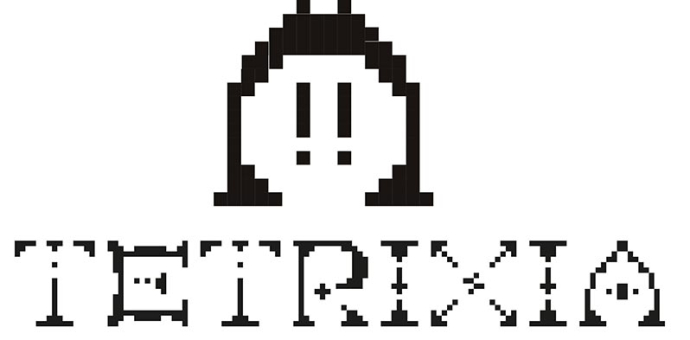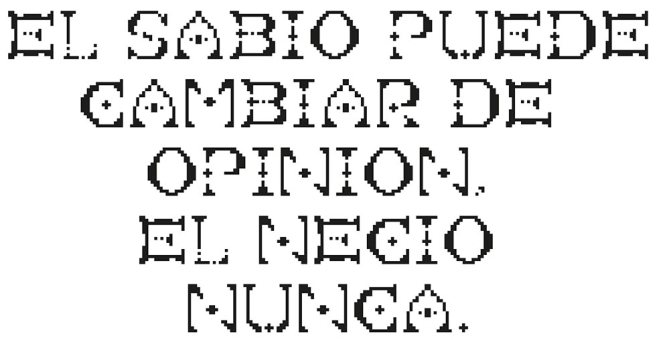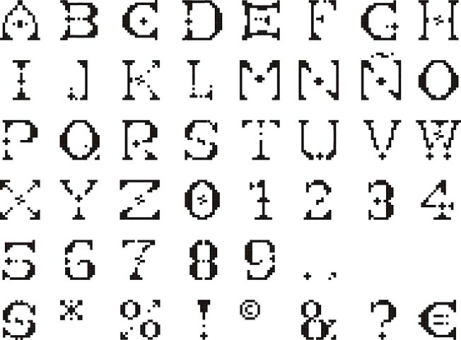
Tetrixia
Font ideal for use in titles, only consists of uppercase. Perfect for original and fun work.
Designer: Belen Provedo Del Pozo
Publisher: Belen Provedo Del Pozo